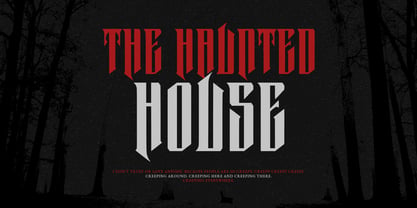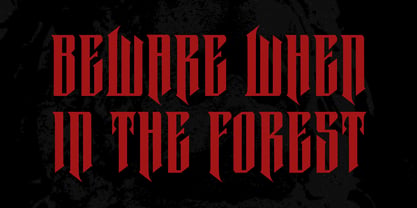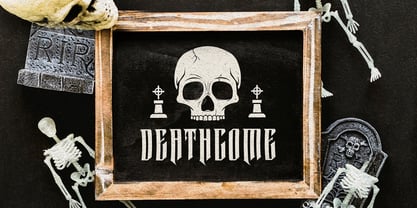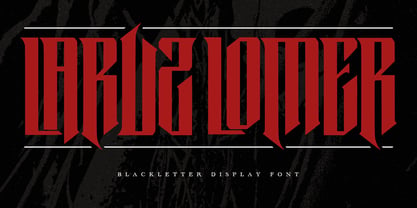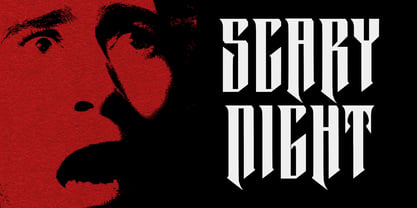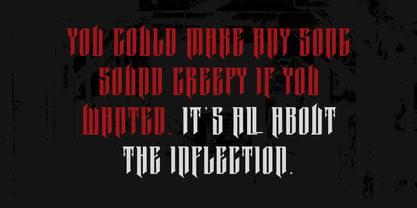
MC Laruz Lomer
by Maulana Creative
The MC Laruz Lomer Font Family was designed by Gilang Maulana and published by Maulana Creative. MC Laruz Lomer contains 1 styles. More about this family
Laruz Lomer Blackletter Display Font. Heavy stroke, vintage character with ligatures. To give you an extra creative work. Laruz Lomer display font support multilingual language. This font is good for logo design, Social media, Movie Titles, Books Titles, a short text even a long text letter and good for your secondary text font with script or serif. Make a stunning work with Laruz Lomer font.
Designers: Gilang Maulana
Foundry: Maulana Creative